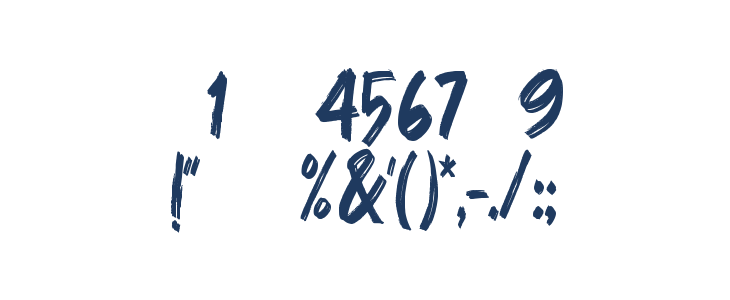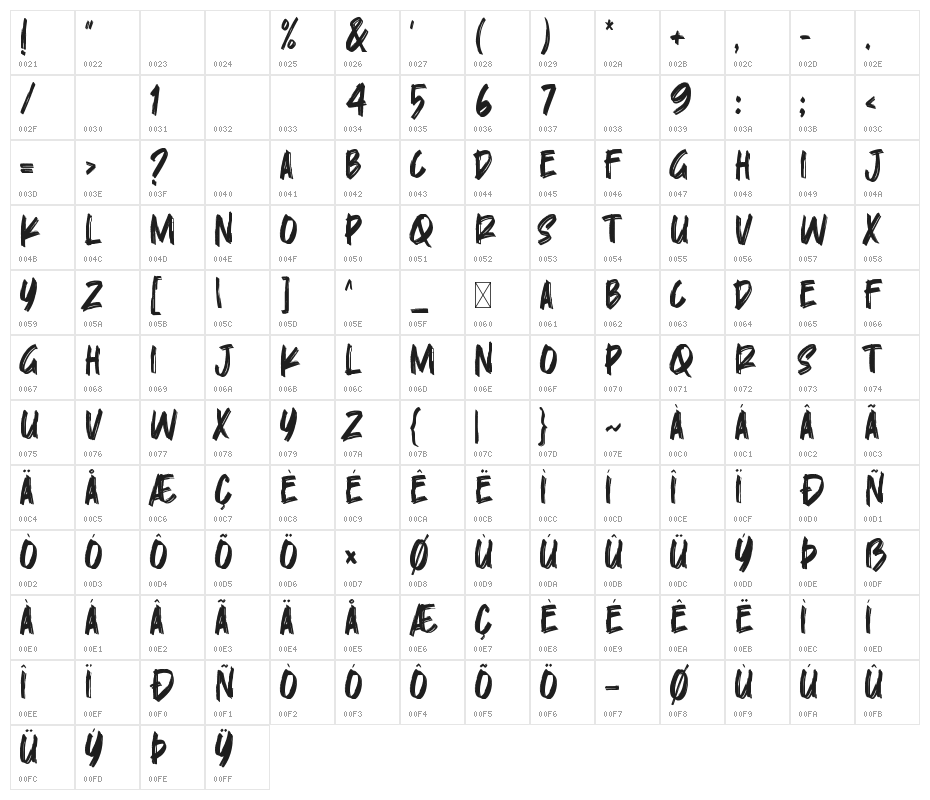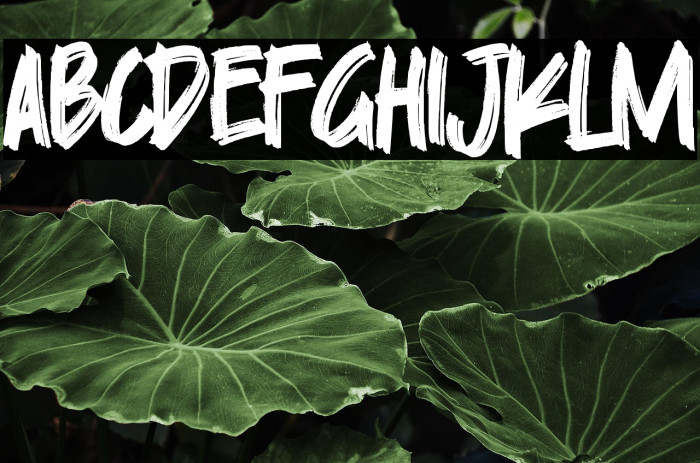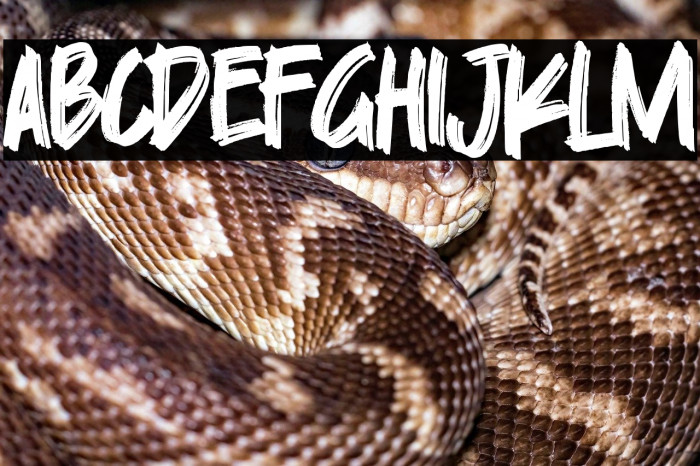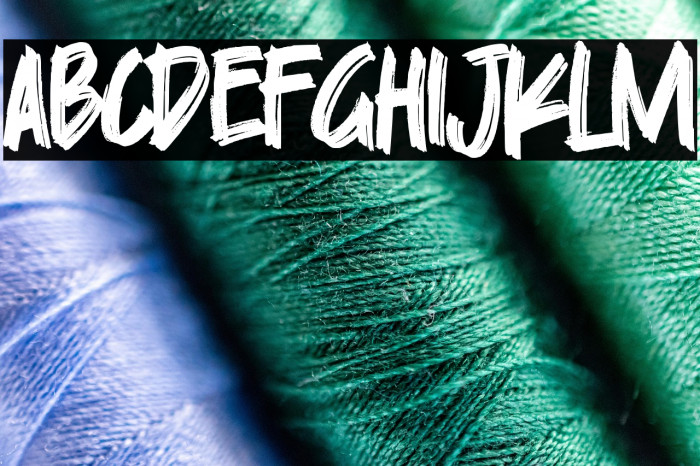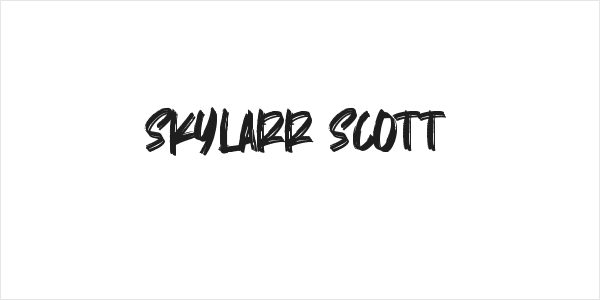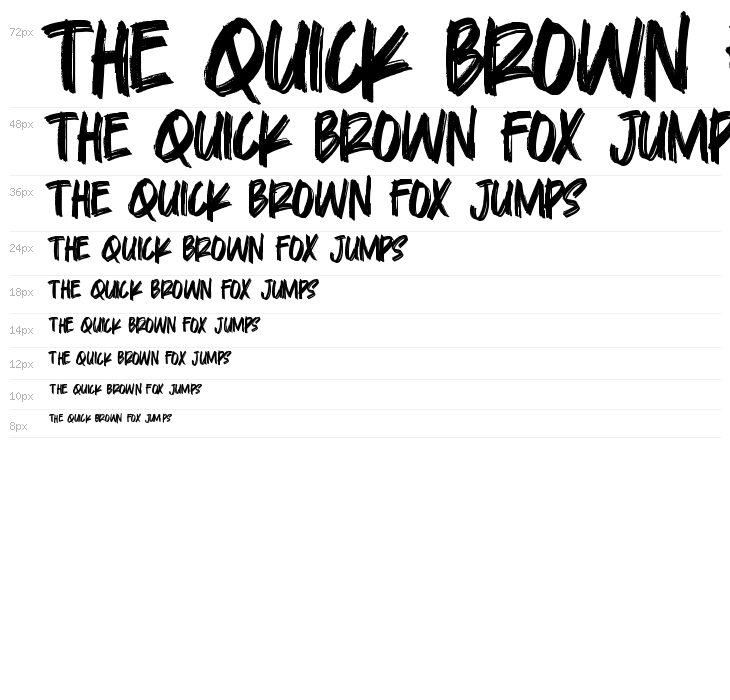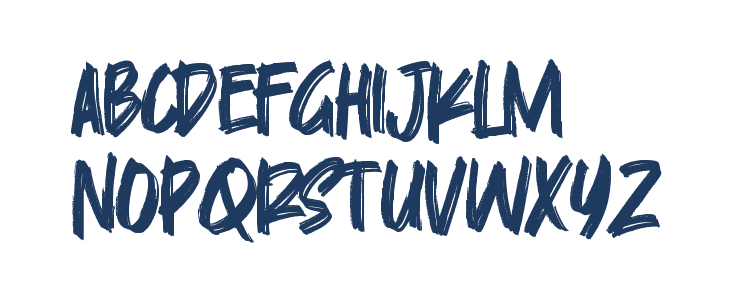
Skylarr Scott Font
Skylarr Scott Description
This font features a bold, expressive style with a hand-drawn appearance. The strokes are thick and dynamic, giving it a sense of energy and movement. Each character is uniquely crafted, with varying stroke widths that add to its artistic flair. The uppercase and lowercase letters maintain a consistent style, while the numbers and special characters integrate seamlessly into the overall design. This font is perfect for projects that require a personal, creative touch, making it ideal for artistic and informal applications.
| Use Case | Headlines, Logos, Artistic projects |
| Proposed Projects | Ideal for posters, album covers, graffiti art, and creative branding projects. |